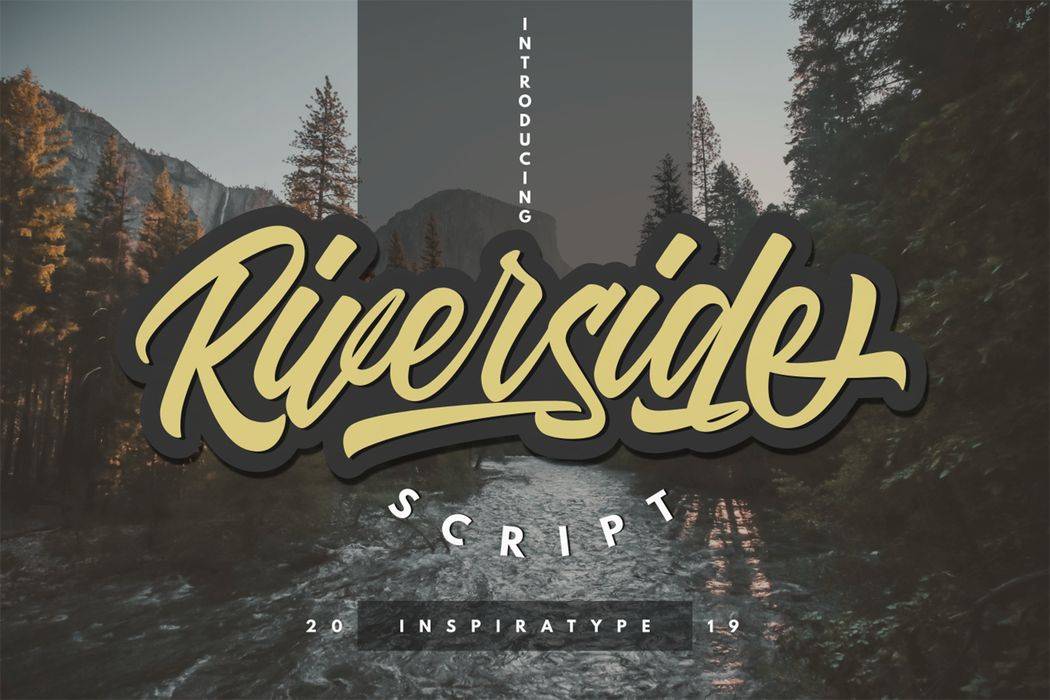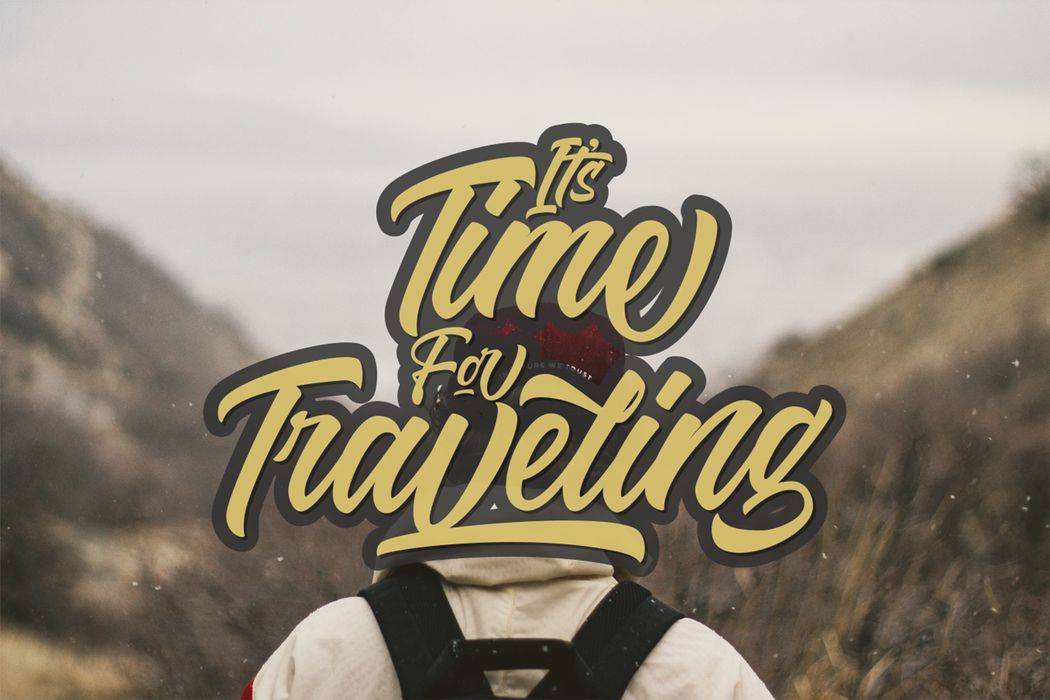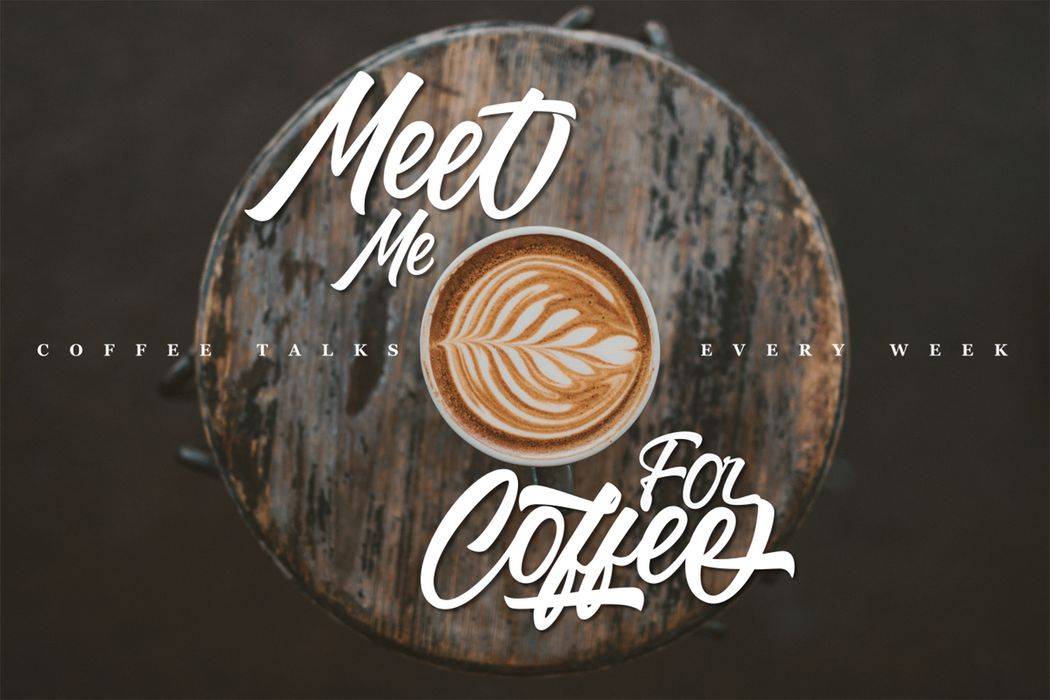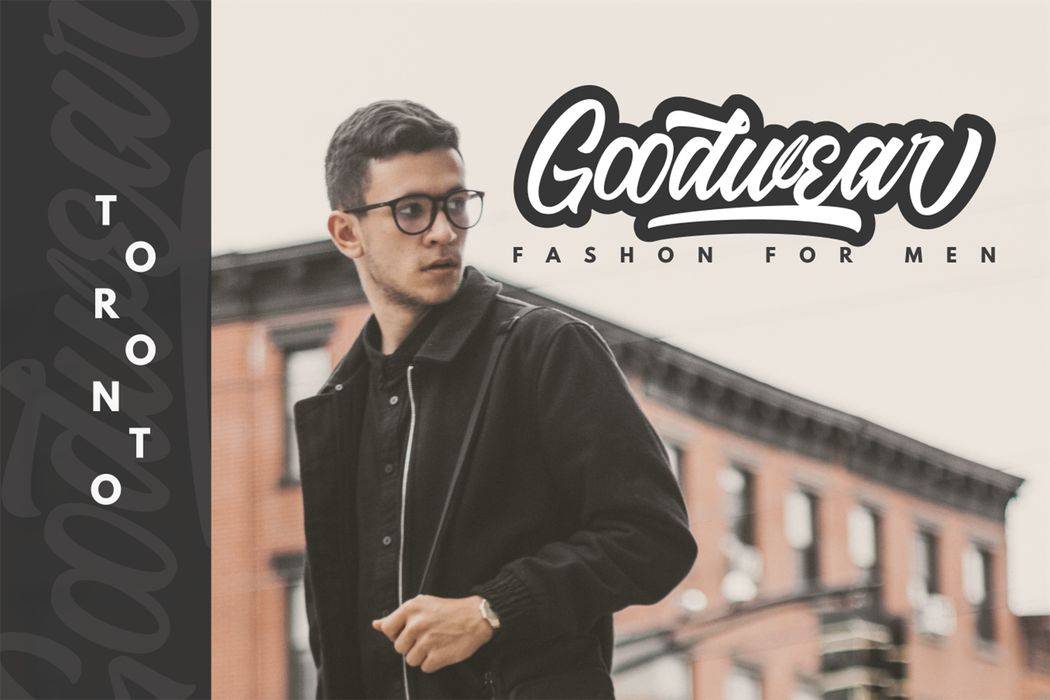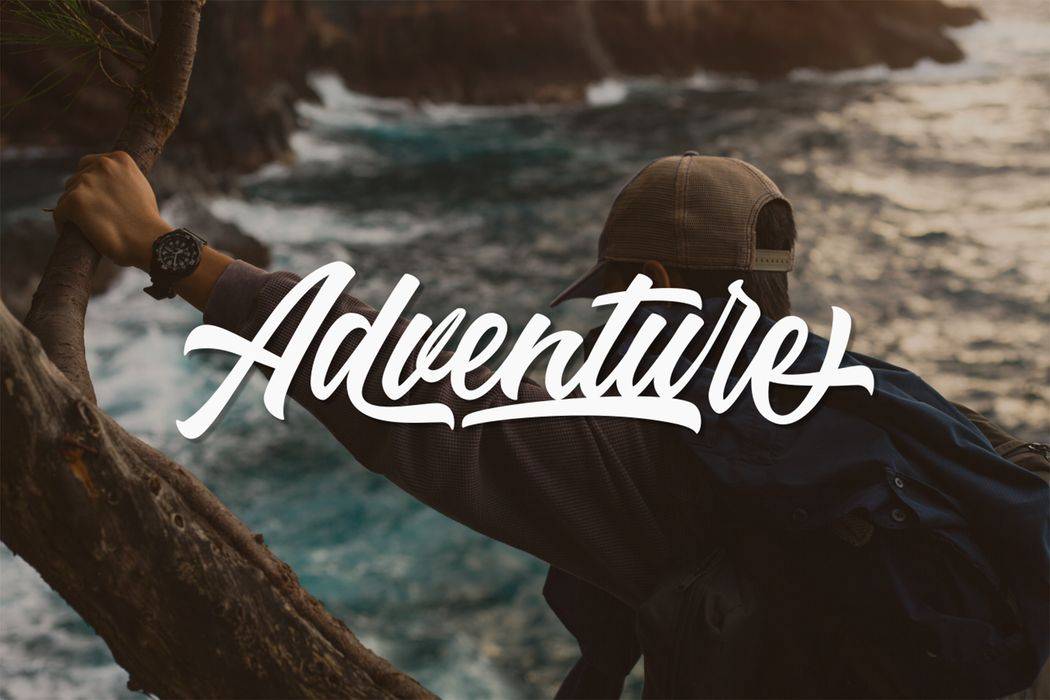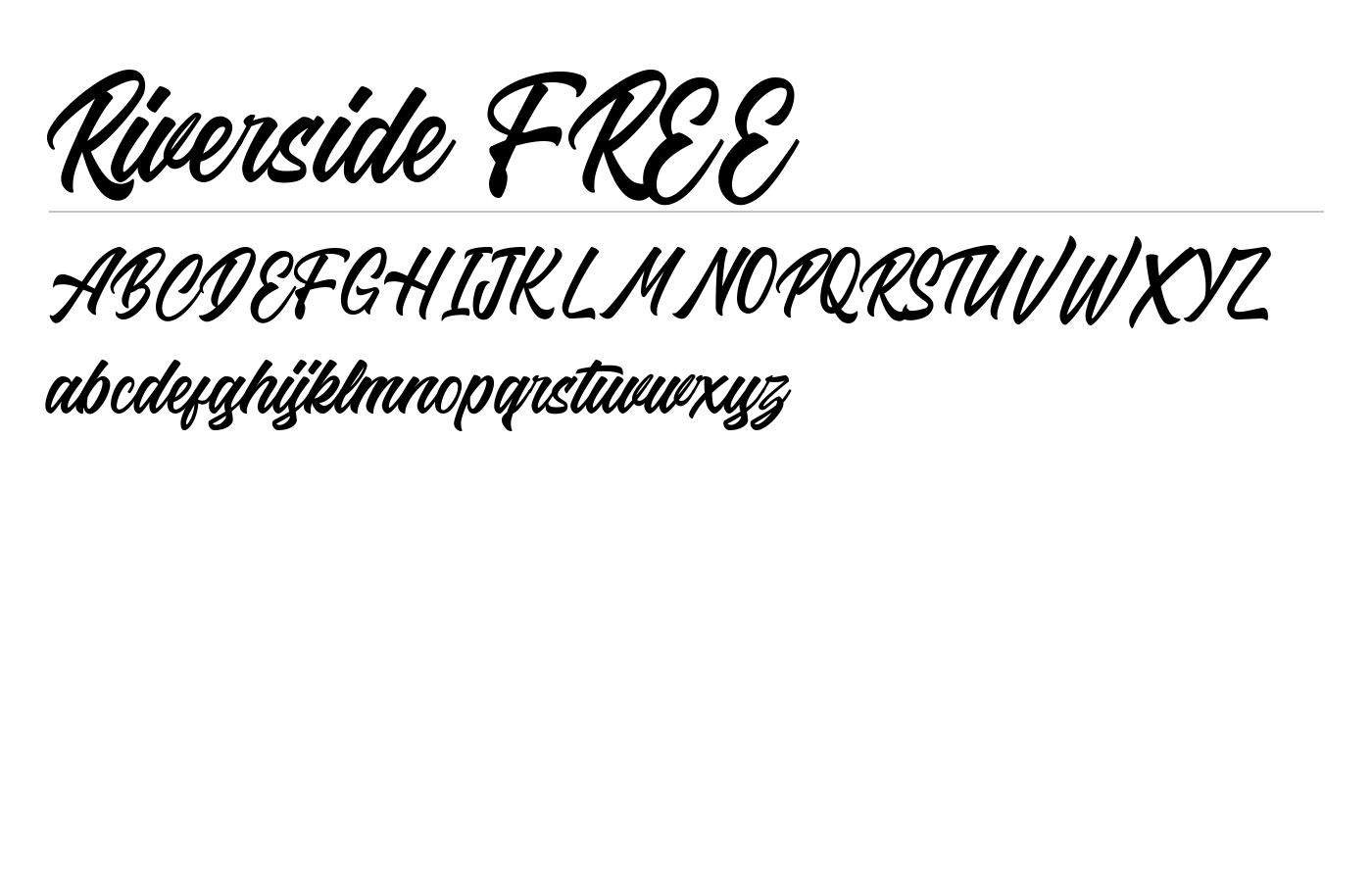
Riverside is a lively script font with a smooth, flowing style that blends elegance with a casual, hand-lettered feel. Its medium weight and moderate contrast give it good readability while maintaining a dynamic, energetic personality, making it perfect for branding, invitations, and creative headlines where a friendly yet refined touch is desired.
Riverside Font
About Riverside Font
| Font family | Riverside Font |
| Designer | inspiratype |